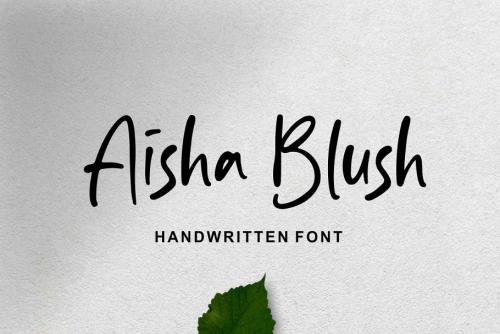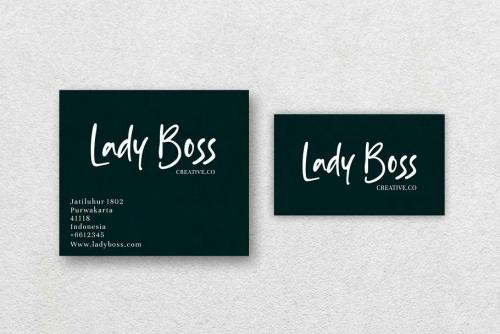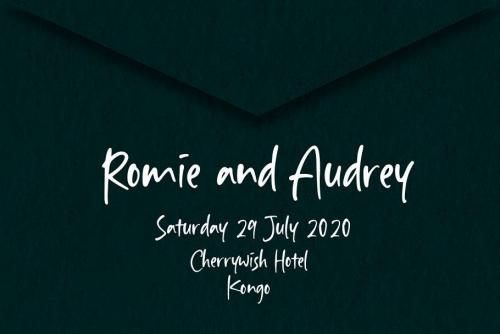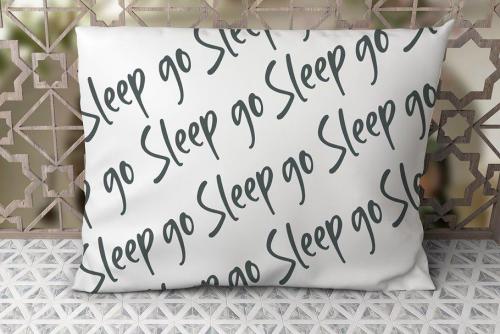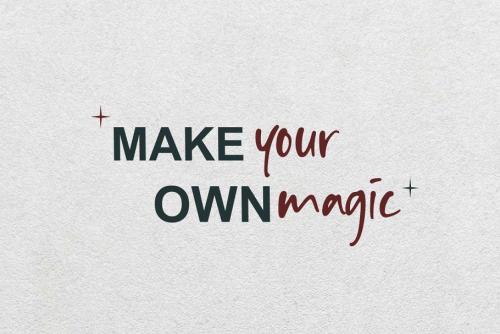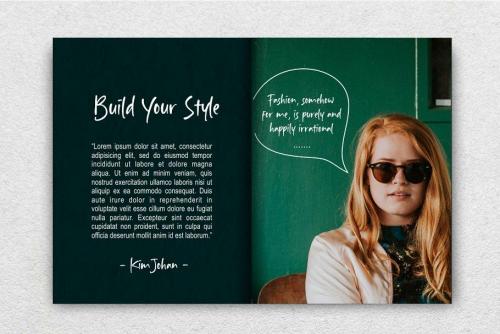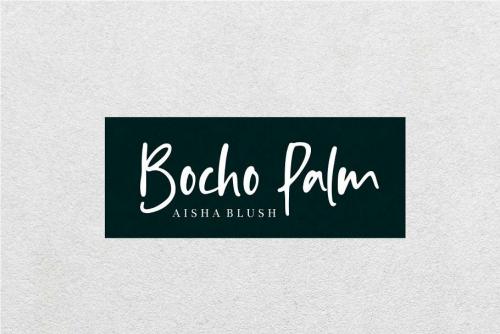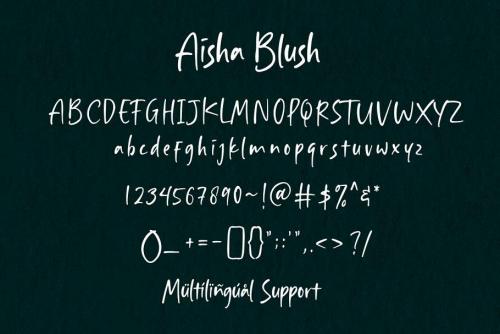
Aisha Blush is a natural handwritten font, this font Is perfect for logo, invitation, stationery, wedding designs, social media posts, advertisements, product packaging, product designs, label, photography, watermark, special events or anything.